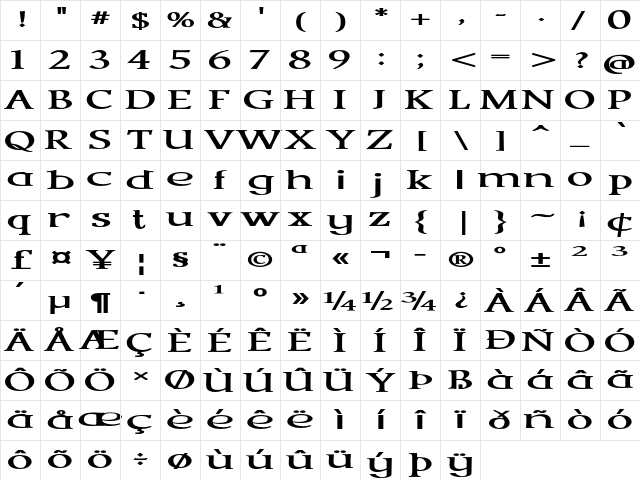
Talimino Extra-expanded Bold
Style: Extra-expanded Bold
Talimino Family
Talimino Extra-expanded Bold
Design Context for Talimino
Talimino is a composed and adaptable typeface that performs quietly and consistently across a wide range of design contexts. Its bold stroke weight gives it real presence on the page.